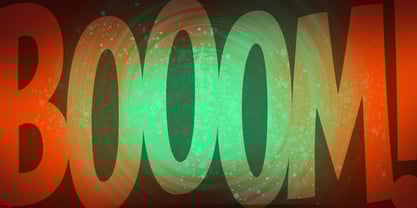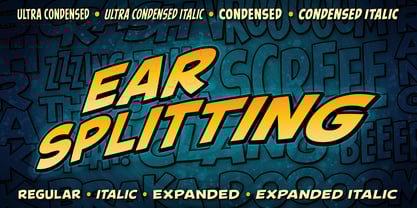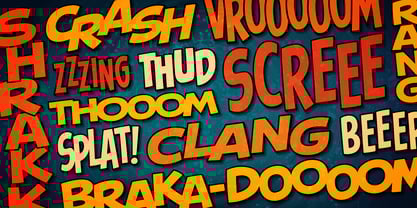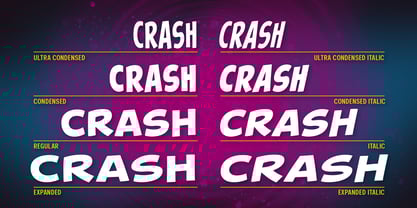
Ear Splitting BB
by Blambot
The Ear Splitting BB Font Family was designed by Nate Piekos and published by Blambot. Ear Splitting BB contains 8 styles and family package options.
Ear Splitting BB is a family of comic book sound effects fonts with a vintage vibe. It's been designed as an "all purpose" sound effects typeface that will have your head ringing! The family includes eight fonts with European characters.
Designers: Nate Piekos
Publisher: Blambot
Foundry: Blambot